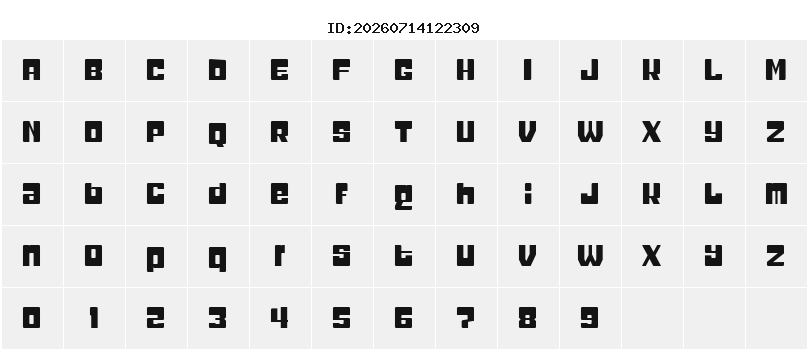
Headcold Preview
About Headcold.ttf
Headcold.ttf is a modern, elegant sans-serif font designed for ultimate readability and visual harmony. Perfect for branding, headlines, web design, and print materials.